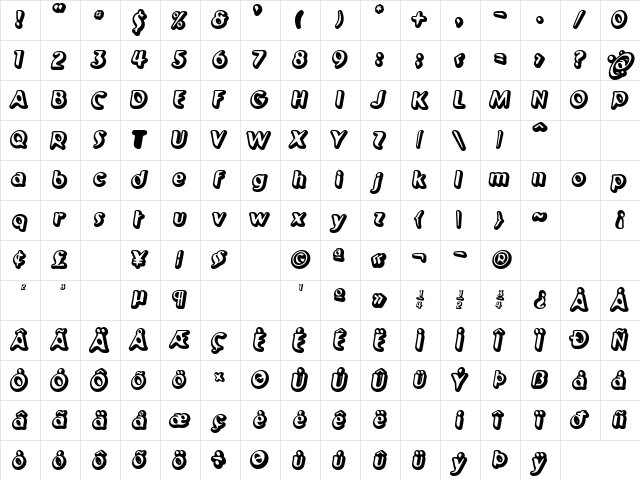
Pilot OuterSpace
Design Context for Pilot Typeface
Pilot is a composed and adaptable typeface that performs quietly and consistently across a wide range of design contexts.